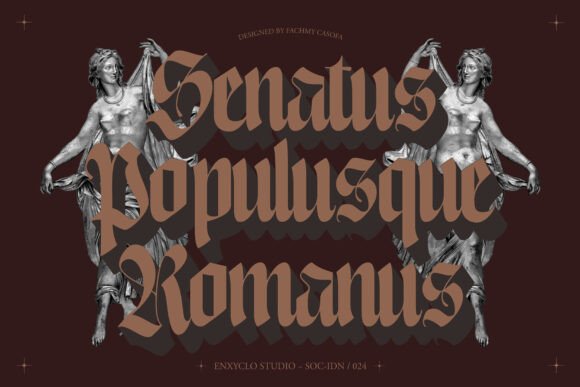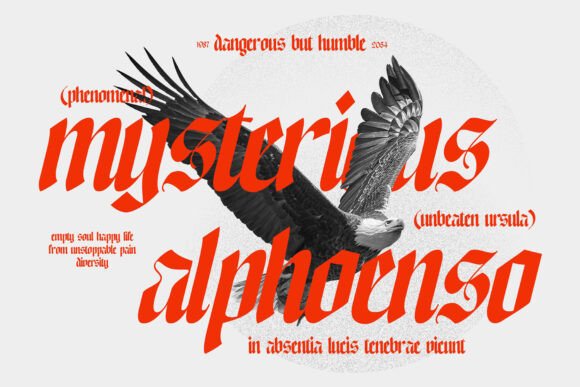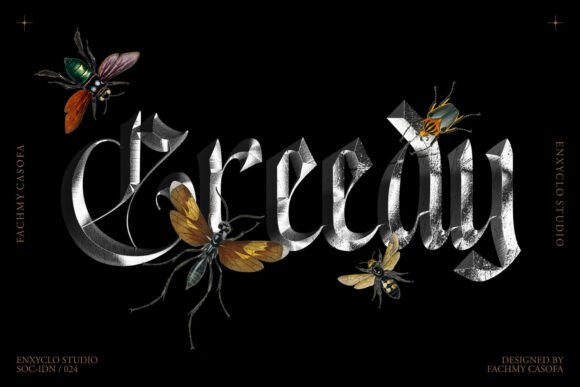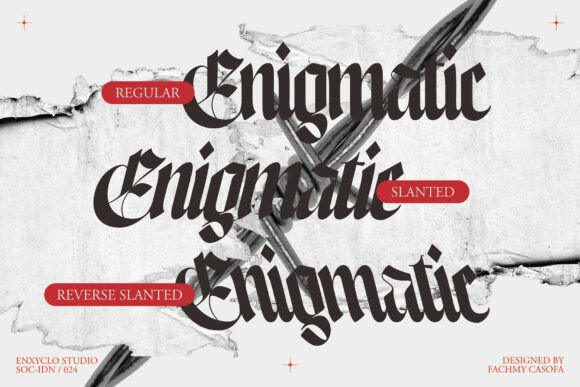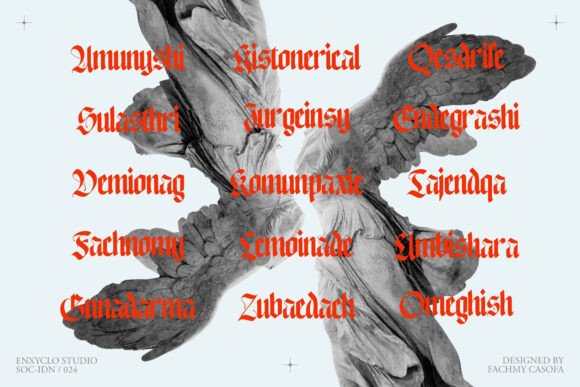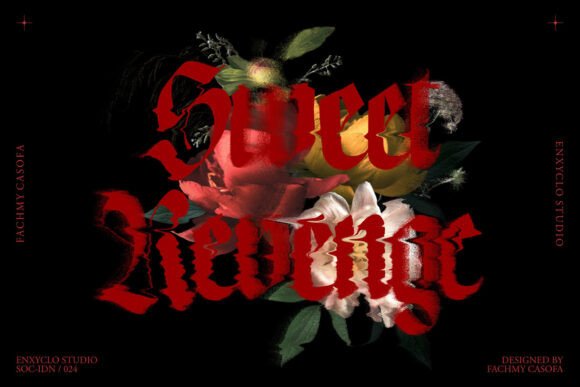
Unveiling the Enigmatic Waesbendiy Font: A Masterful Blend of Medieval and Modern Elegance
In the realm of typography, few fonts manage to capture the essence of both medieval mystique and modern sophistication as effortlessly as the NCL Enigmatic Waesbendiy. This unique Blackletter font style is a creative masterpiece, meticulously crafted to transport designers and crafters to an era of ancient lore, while still speaking to contemporary tastes and sensibilities. Whether you’re embarking on a medieval-themed project or aiming for a design that exudes an eclectic, modern-classic vibe, the NCL Enigmatic Waesbendiy font is poised to elevate your creative endeavors to new heights.
A Journey Through Time: The Inspiration Behind NCL Enigmatic Waesbendiy
The NCL Enigmatic Waesbendiy font draws its inspiration from the rich tapestry of the Middle Ages, an era known for its remarkable artistry, literature, and architectural achievements. The Blackletter style, which originated in the 12th century, was a hallmark of medieval typography, characterized by its dramatic flourishes and intricate designs. However, the NCL Enigmatic Waesbendiy breathes new life into this ancient style by infusing it with a contemporary flair. The result is a font that not only pays homage to its historical roots but also feels refreshingly modern and relevant.
Design Features and Versatility
One of the standout features of the NCL Enigmatic Waesbendiy font is its comprehensive design elements. This font includes:
- Uppercase and lowercase letters, ensuring versatility in your typography.
- Numerals, punctuation, and symbols, providing everything you need for a wide range of projects.
- Alternates, allowing for greater creative flexibility and customization.
- Extensive multilingual support, making it an excellent choice for global projects.
This extensive feature set makes the NCL Enigmatic Waesbendiy an incredibly versatile tool, capable of enhancing a multitude of design projects. From the development of eye-catching websites and enticing posters to the creation of standout logos and more, this font is designed to imprint a note of innovative elegance on your work.
Applications and Creative Possibilities
The NCL Enigmatic Waesbendiy font lends itself to a myriad of applications, limited only by your imagination. Here are a few ideas to get you started:
- Medieval and Fantasy Themes: Bring your medieval or fantasy-themed projects to life with a font that authentically captures the essence of the era.
- Modern Designs: Add an eclectic, modern-classic touch to your contemporary designs, setting them apart from the ordinary.
- Branding and Logos: Create memorable brand identities and logos that stand out, thanks to the font’s unique charm and character.
- Web Design: Elevate your website’s typography, making it not only visually appealing but also conveying a sense of history and sophistication.
Why Choose NCL Enigmatic Waesbendiy?
In a sea of fonts, the NCL Enigmatic Waesbendiy stands out for several reasons:
- Unique Aesthetic: It offers a distinctive blend of medieval and modern aesthetics, making it a rare find in the world of typography.
- High Versatility: With its comprehensive set of characters and features, it’s adaptable to a wide range of projects and design needs.
- Attention to Detail: The font’s design reflects a meticulous attention to detail, ensuring that it meets the highest standards of typographic excellence.
For designers and crafters seeking a font that will add depth, character, and a touch of the extraordinary to their projects, the NCL Enigmatic Waesbendiy is an unparalleled choice. It’s not just a font; it’s a gateway to creating works that resonate with audiences, convey complex emotions, and leave a lasting impression.
| Font Name | Enigmatic Waesbendiy Font |
| Author | Enxyclo |
The NCL Enigmatic Waesbendiy font is a typographic masterpiece that bridges the gap between medieval allure and modern elegance. Its unique Blackletter style, combined with contemporary flair, makes it an indispensable tool for designers and crafters aiming to create impactful, memorable designs. With its extensive features and versatile applications, this font is poised to become a cherished asset in your creative arsenal. Dive into the world of innovative typography with the NCL Enigmatic Waesbendiy, and discover new possibilities for expressing your creative vision.